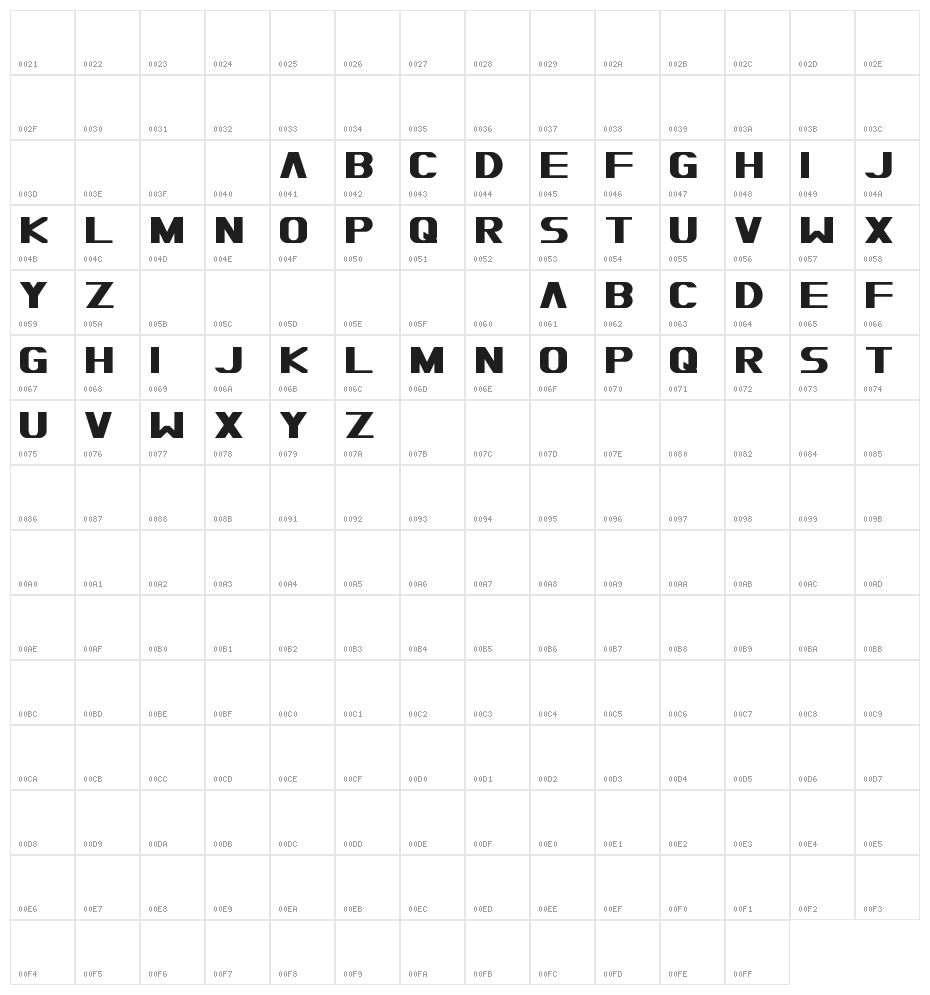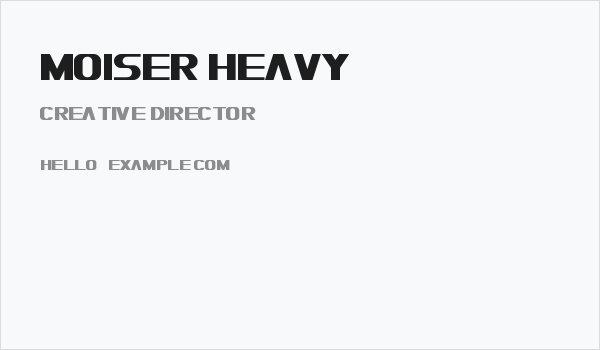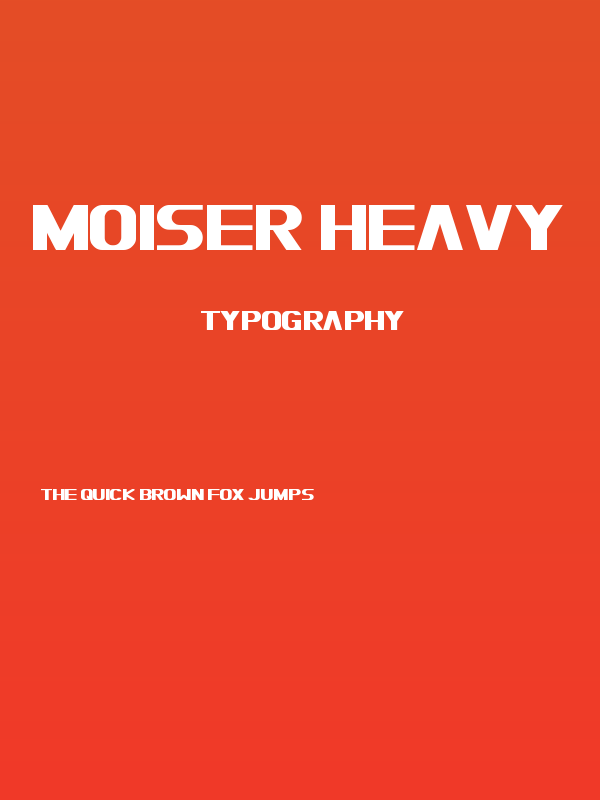
Moiser heavy Font
Moiser heavy Description
This font features a bold and geometric design with strong, angular lines and a modern aesthetic. The characters are constructed with a consistent stroke width, giving it a uniform appearance. The uppercase letters exhibit a unique style with some characters having distinct cuts and angles, adding a dynamic and edgy feel. The overall design is clean and impactful, making it suitable for attention-grabbing headlines and titles. The font's boldness and geometric nature make it ideal for modern and contemporary design projects.
| Proposed Projects | Ideal for branding, advertising, posters, and any project requiring a strong visual impact. |